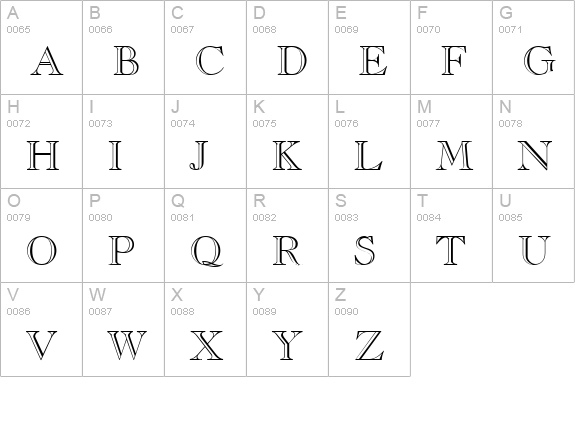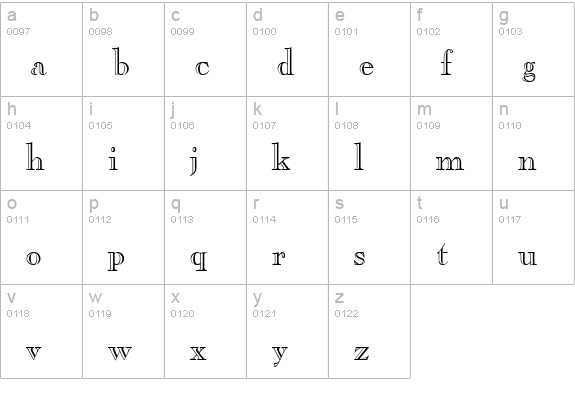
TR CasperOpenFace Plain Font Details
TR CasperOpenFace Plain is a modern and stylish font that combines simplicity with a touch of elegance. The clean lines and sharp edges make it perfect for a wide range of design projects, from branding to web design. This versatile font is easy to read and will make your text stand out with its unique character. Best of all, TR CasperOpenFace Plain is available for free download at FontsMarket.com. This means you can easily access this high-quality font without any cost, making it a great choice for both personal and commercial use. Don't miss out on the opportunity to enhance your projects with this beautiful and free font!